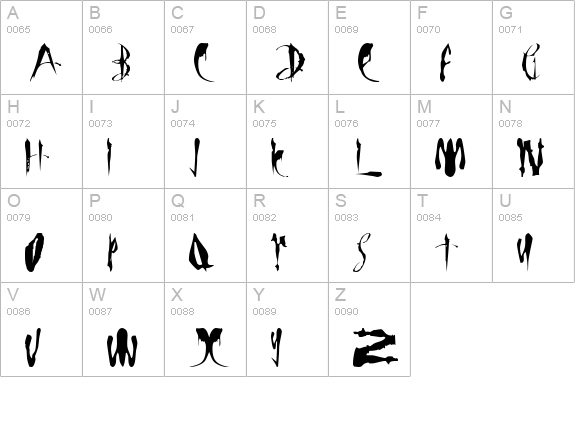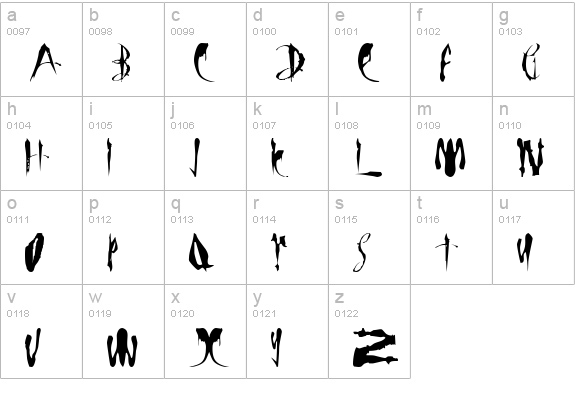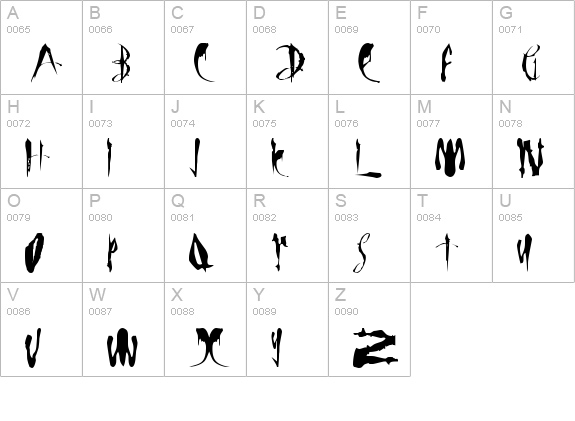
The LMS Bloody Brujah font is a striking and bold typeface that exudes a sense of strength and power. Its sharp edges and unique design make it perfect for creating eye-catching headlines, logos, and posters. This font is ideal for projects that require a touch of edginess and attitude. What sets the LMS Bloody Brujah font apart is its free availability for download at FontsMarket.com. This means that you can easily access this captivating typeface without any cost, making it a valuable addition to your font collection. Whether you're working on a personal project or a professional design, the LMS Bloody Brujah font is sure to make a statement and leave a lasting impression.